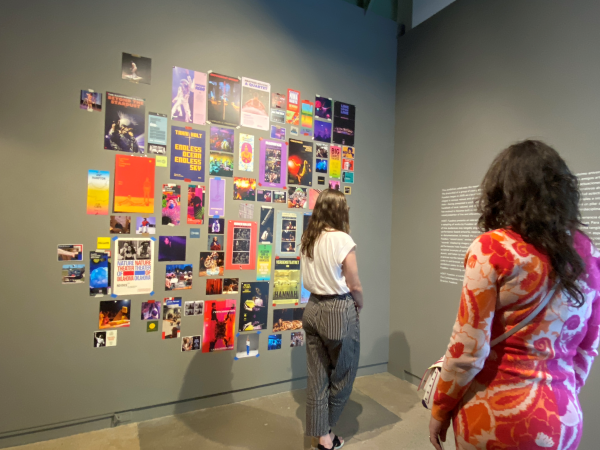
Type Around the World – Get to Know Austin, Texas
In this recurring feature in our “Fonts Having a Moment” series, we’ll be exploring cities around the world through the dual lenses of culture and typography, guided by our friends at Monotype and some of our partner foundries. Join us on this exciting virtual journey!
This time, get to know Austin, Texas with Michu Benaim Steiner of In-House International. In-House International’s work has recently been featured in Monotype’s 2025 trends report, Re:Vision, Future Typography, in the “Hot & Wet” theme, exploring the role of typography in seeking and championing innovative climate solutions. We’ll also be visiting Austin this weekend to talk about the report’s first theme, “Sound & Vision,” and the resurgence and reinvention of Americana with COLLINS. Hope to see you there!
1. Tell us a bit about yourself and your foundry.
My name is Michu, and I’m originally from Venezuela. I moved to Austin in 2010 with a freshly launched magazine that was my first foray into proper graphic design. These days, I run In-House International (also known as In-House and weareinhouse), a branding agency that opened in 2011 with a fully remote team.
For a long time, we worked with clients of every size and across lots of industries, and we were committed to not establishing a recognizable studio style — we’re big believers that brands need to look like themselves. But even as we made very different styles of design and brand work for very different clients, offering custom typefaces was one way we stood out.
We launched the foundry early in the pandemic — egged on by our fearless partner Rodrigo Fuenzalida at fragTYPE — partly to make something in our own voice. Our first release, Ragtag, was a nod to our scattered creative team. Since then, all our type releases have started from what we’re thinking about, what we’re paying attention to, and what vibe we want to put into the world. We create display types that tell a story. Many of them, like Troptical, Broker, and Brinca, push the technical possibilities of type in some way.
Zanco is a variable font by In-House International. Read more and see more examples of their work in the Hot & Wet theme in the Re:Vision, Future Typography type trends report.
The foundry is part of the branding agency. And as In-House has shifted its focus to work in climate tech and clients whose work supports decarbonization, our typefaces picked up on what we see there. There’s a huge disconnect between the urgent need to shift gears and the industry’s approach to engaging with the public. There’s very little joy and delight in the climate space. So we’ve been creating what we feel is missing and offering it to designers to use for their own work.
2. Tell us about your city. What do you love about it? What’s distinctive about it?
Austin can be disarmingly friendly. It’s a sunny place and though it’s the capital of Texas, there’s a welcoming vibe. It was something that shocked me when I moved here: not just the smiles, but the ease and openness of the people around you.
Downtown Austin, TX.
The weather has something to do with that (even the endless and very hot summers). There’s lots of parks, public courts, and city pools. And lots of bars, restaurants, and music venues with outdoor spaces. Live music is a draw. The city feels lively and social.
And, fortunately, there are many really amazing designers who’ve made an art form of designing the branding, materials, spaces, and every detail of restaurants, hotels, venues, bars, theaters, and third places. There’s merch and signage and a vibe everywhere you go. Which I suspect encourages friendliness. It’s easier to be friendly when you feel welcome.
The Moody Amphitheater is a year-round destination for live events, located downtown in an 11-acre park.
And speaking of being welcoming, Austin has developed a hospitality and restaurant scene that’s become something of a reference — my studio partner Alex, who lives in Barcelona, always talks about how designed every detail is and how it seems like all bars and restaurants have merch. And designers here go hard on brand applications and packaging. I think that visual culture has made Austin-built brands into attractive exports.
3. Where would you take someone visiting your city for the first time to explore its creative heart?
Austin has a reputation for being an “experiences” city, and that shows up in creativity and culture as well. To me, Austin’s creative strengths are time-bound, as much as they are about location. So there’s less of a single creative heart and more clusters with their own heartbeats (and the many, many festivals that activate them!)
The Contemporary Austin - Jones Center.
The city’s famous for live music. Downtown(ish), there’s the Elephant Room, the Paramount and State Theatres, and Austin City Limits Live, plus The Contemporary Austin at the Jones Center, which is an art museum, but they also have programming on their rooftop.
There’s also the whole Red River Cultural District, with its back-to-back venues active year-round, but with a whole different level of buzzing during festivals like SXSW and ACL. Beyond music, there’s Fusebox, which brings world-class live performances that are hard to categorize and aren’t fixed to a particular venue. Instead, they partner with co-presenters like Texas Performing Arts and locations around the city. I’ll go to anything Fusebox puts on, frankly.
The crowd at Fusebox Explosioncita, a collaborative performance between an electronic band and experimental puppetry art collective.
For Visual Arts, I head to East Austin, particularly around Springdale Road. There’s MASS Gallery, Springdale General, Canopy, the Museum of Human Achievement, grayDUCK Gallery, Women & Their Work, and Co-Lab Projects, just to name a few.
An installation at MASS Gallery.
And the University of Texas at Austin is home to lots of museums and institutions, including the Blanton Museum of Art, the Visual Arts Center, and the Harry Ransom Center with its amazing archives.
The Visual Arts Center.
Speaking of archives: there’s lots of writerly and readerly activity in town as well. BookPeople is a classic. Over the past couple of years, we’ve gotten a lot of new bookshops. Personal favorites include First Light Books, Black Pearl Books, and Vintage Bookstore and Wine Bar.
Inside Vintage Bookstore and Wine Bar.
4. What’s a typeface that you think represents the spirit of your city and why?
This question is wicked! I may have at one point opened up a spreadsheet to inventory and group the dominant Austin-y fonts. But from the gut, I think neon signage is a great medium that’s representative of Austin’s spirit; welcoming, loud, irreverent, charming, fun-loving.
Neon signage lights up the night.
And those come in three cheery flavors: chunky industrial sans (sometimes embellished with the tiniest little spurs), swashy cursive, and what I’ll call the vaguely-retro “other.” The spirit of Austin is neon because it’s fun, approachable, and buzzy.
A classic Austin neon sign at The Long Goodbye.